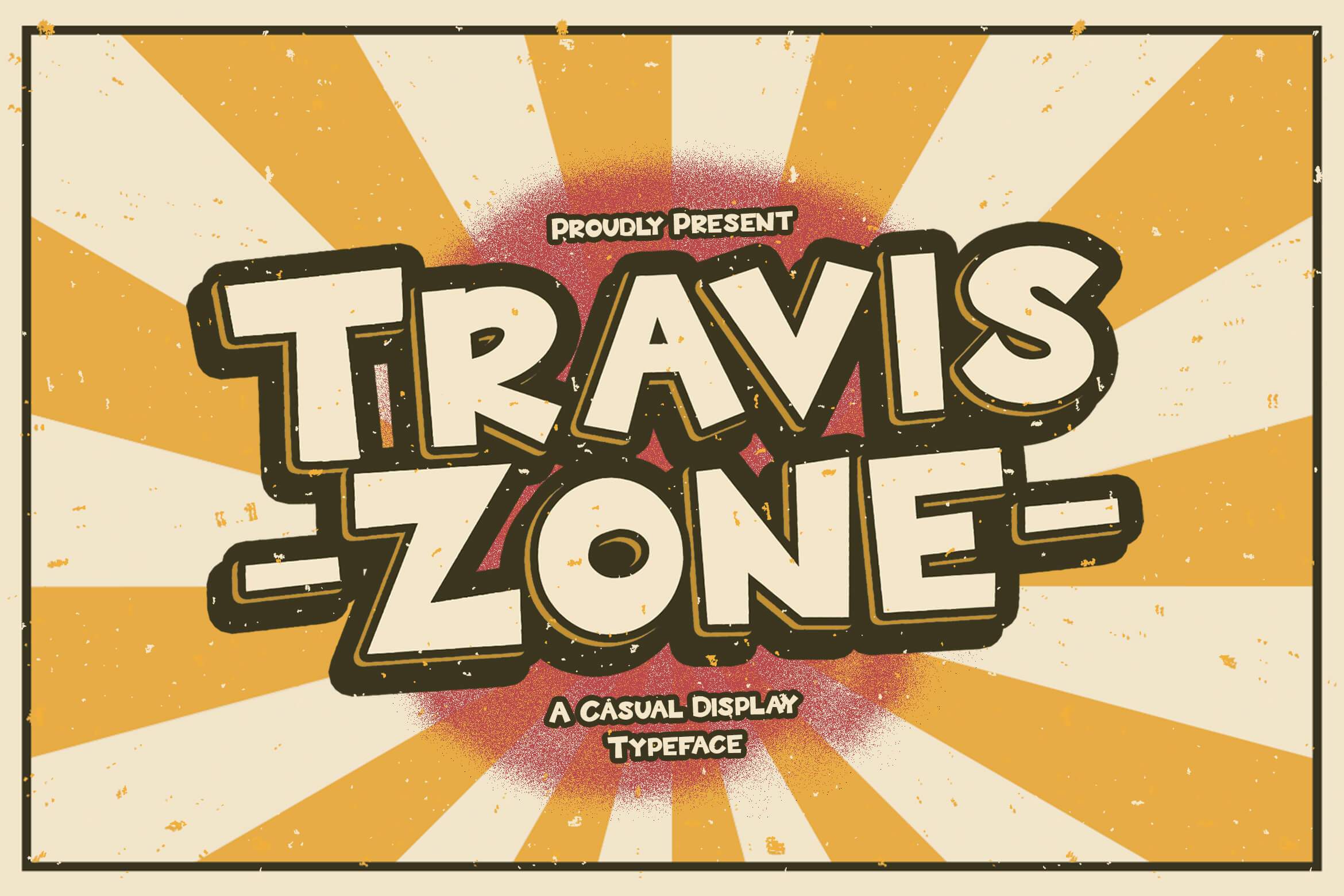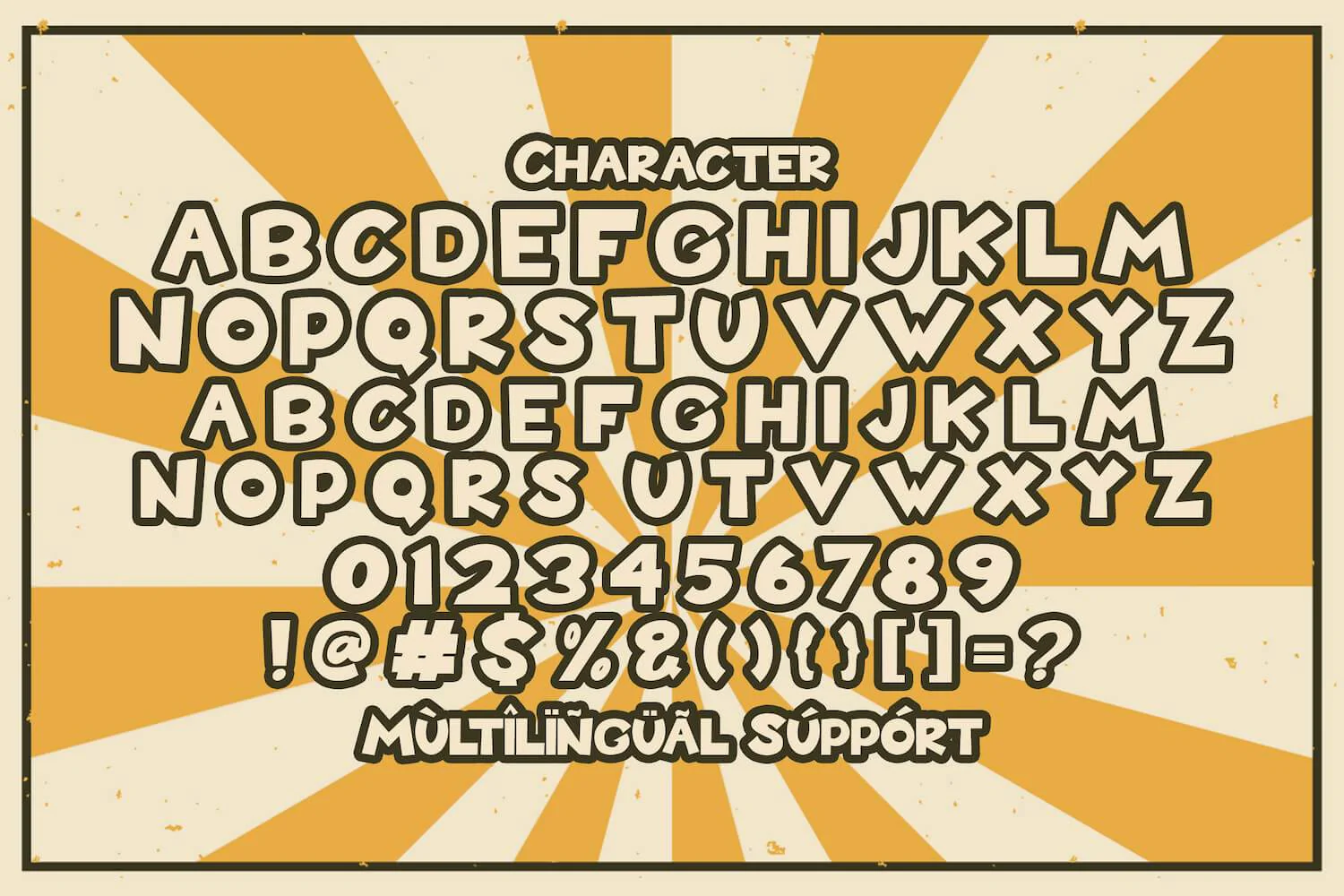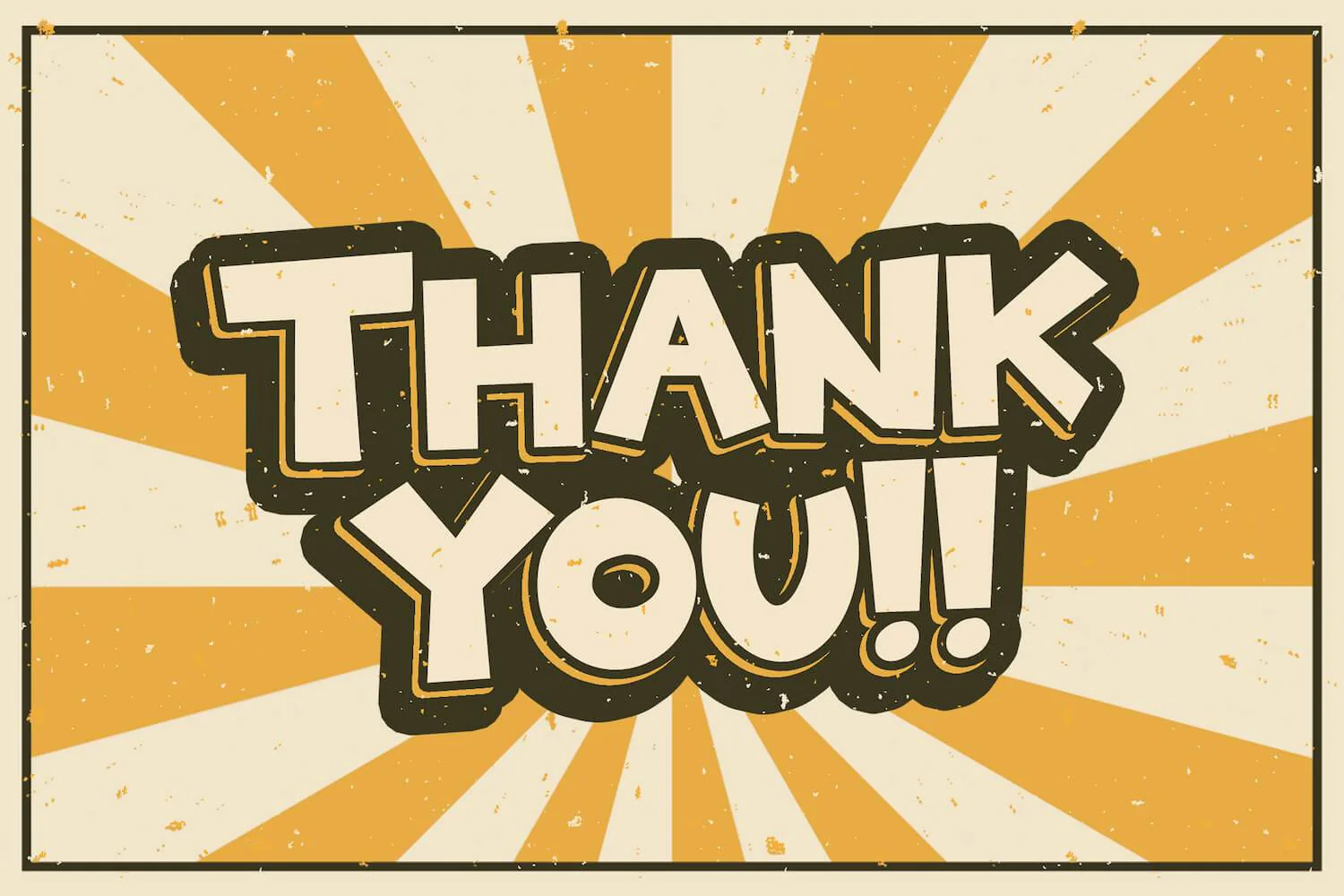
Travis Zone - Playful Display Font
Introducing Travis Zone - Playful Display Font
Travis Zone is a fun display font. Playful and fresh, this font will be a hit for each of your children or school projects!